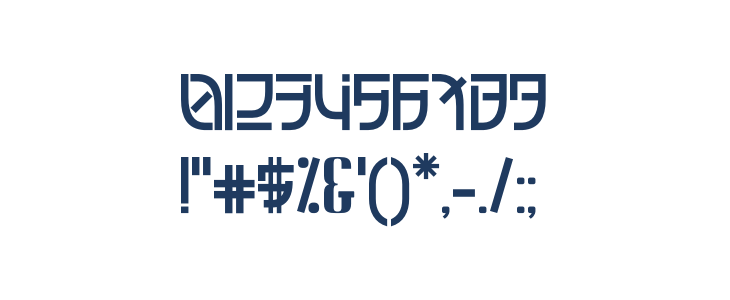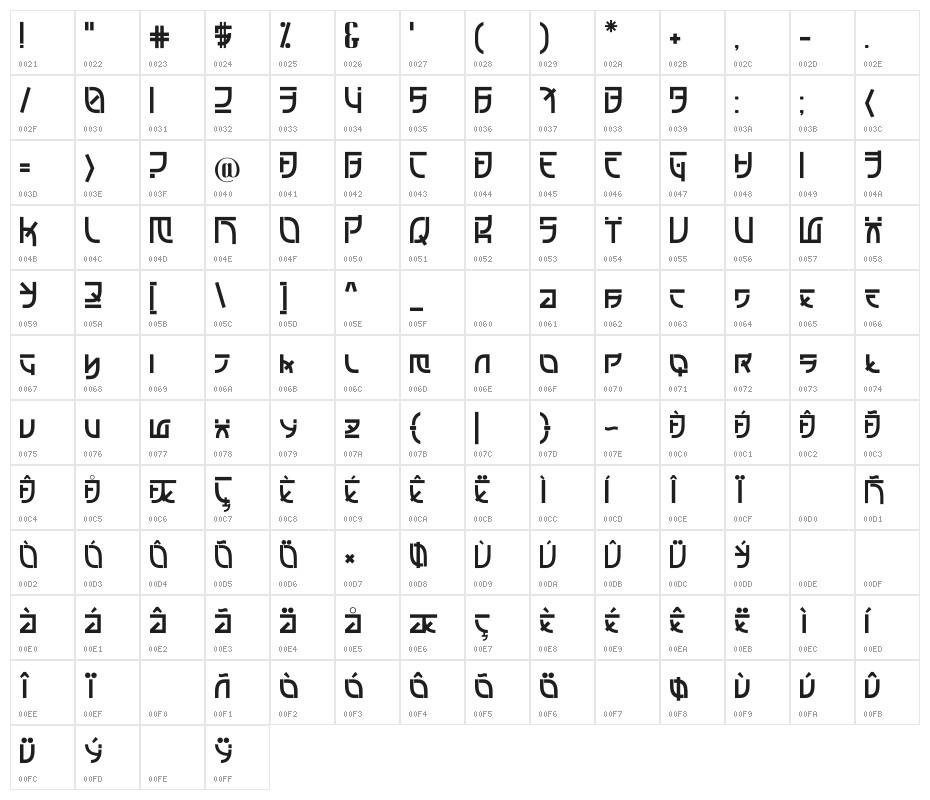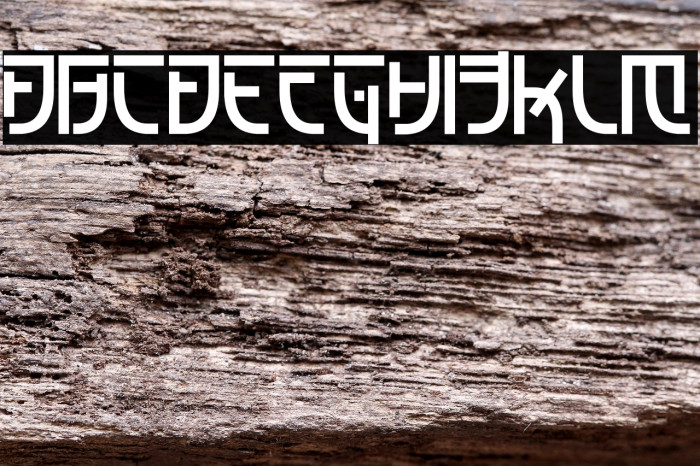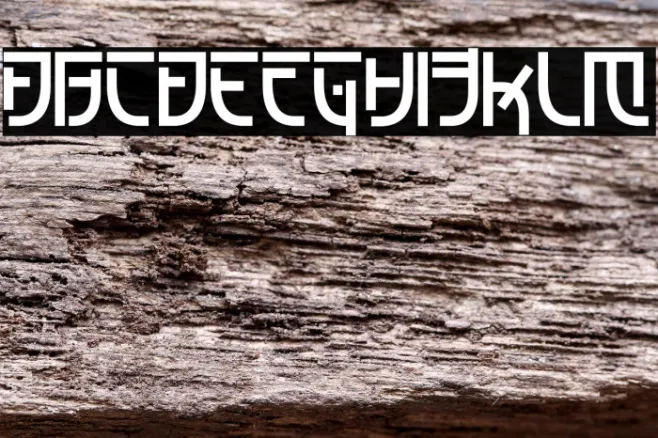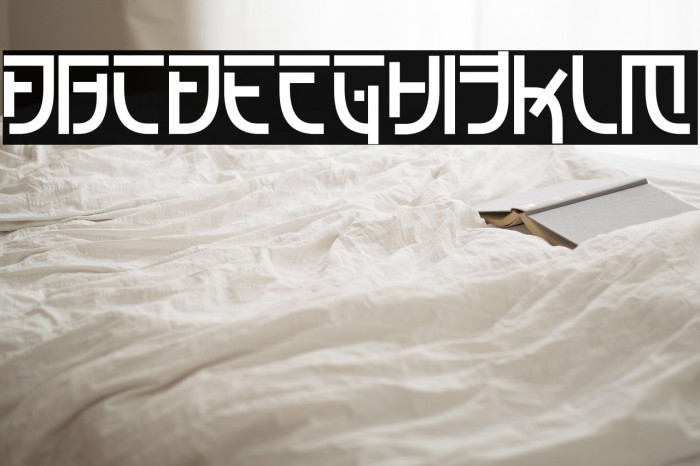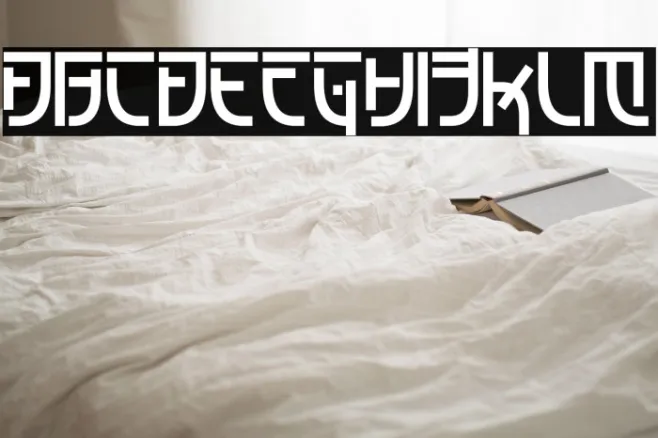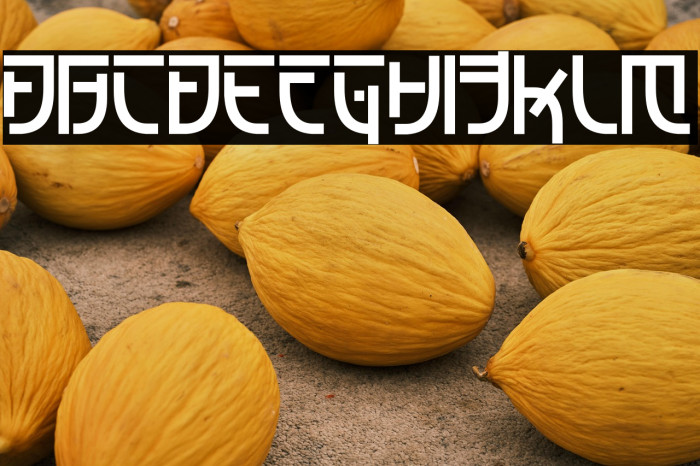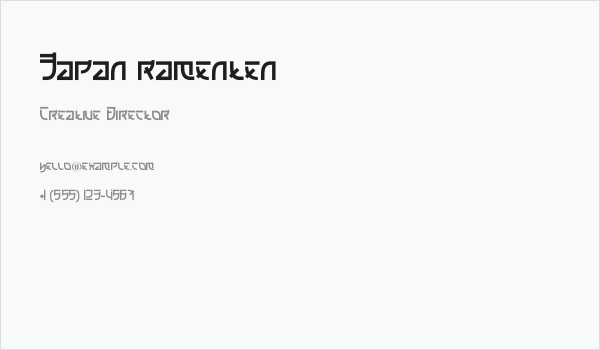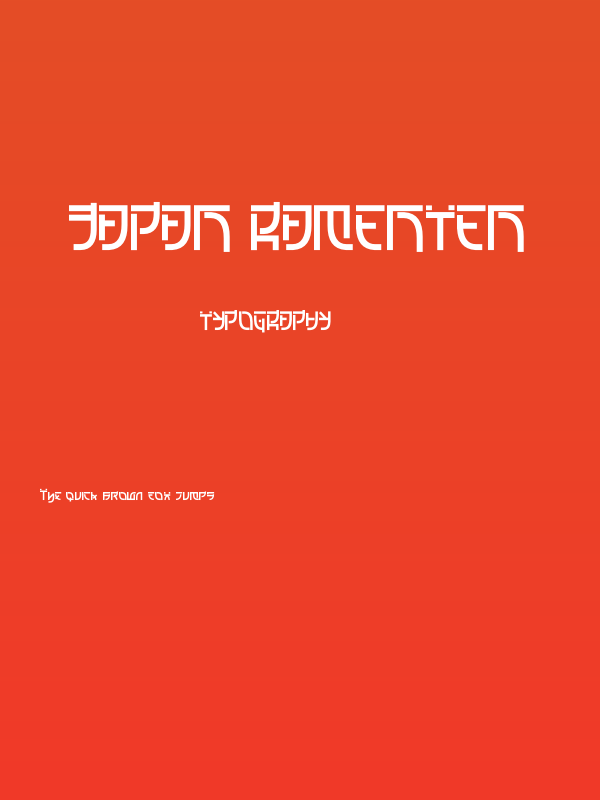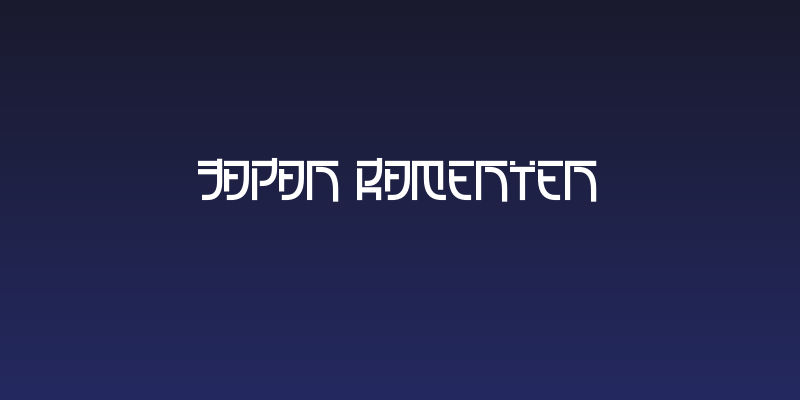
Japan ramenten Font
Japan ramenten Description
This font features a bold and geometric design with a distinctly modern and futuristic aesthetic. The characters are constructed with thick, uniform strokes, giving them a strong presence. The angular and blocky shapes create a sense of structure and precision, while the consistent stroke width throughout the characters adds to the font's cohesive look. The uppercase and lowercase letters share similar design elements, maintaining a uniform style across the alphabet. The numerals and special characters are designed to match the overall theme, ensuring visual harmony. This font's unique style makes it stand out, making it suitable for projects that require a contemporary and eye-catching typeface.